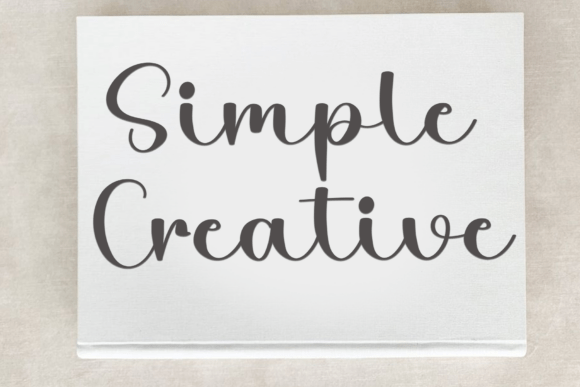
Angelina Whitening Font: Elevate Your Design with a Timeless Handwritten Style
Are you looking for a font that can add a touch of elegance and sophistication to your designs? Look no further than the Angelina Whitening Font. This lovely and timeless handwritten font is perfect for creating eye-catching logos, branding, and quotes that will leave a lasting impression on your audience.
What Makes Angelina Whitening Font Special?
- Unique and Beautiful Touch: Every letter in the Angelina Whitening Font has a unique and beautiful touch that will make your design come alive. The font’s handwritten style gives it a personal and human feel that is hard to replicate with generic fonts.
- Timeless Design: The Angelina Whitening Font has a timeless design that will never go out of style. Its classic look and feel make it perfect for creating designs that are both modern and vintage.
- Elegant and Sophisticated: The font’s elegant and sophisticated style makes it perfect for creating high-end designs that require a touch of luxury.
10 Creative Ways to Use Angelina Whitening Font
- Logo Design: Use the Angelina Whitening Font to create a unique and memorable logo for your brand. The font’s handwritten style will give your logo a personal touch that will help it stand out.
- Branding: Use the font to create a consistent brand identity across all your marketing materials. The font’s elegant and sophisticated style makes it perfect for creating high-end branding.
- Quotes and Posters: Use the font to create eye-catching quotes and posters that will grab the attention of your audience. The font’s unique and beautiful touch will make your quotes and posters stand out.
- Wedding Invitations: Use the font to create beautiful and elegant wedding invitations that will set the tone for the big day.
- Social Media Graphics: Use the font to create engaging social media graphics that will help you connect with your audience.
- Packaging Design: Use the font to create eye-catching packaging designs that will make your products stand out on store shelves.
- Advertising: Use the font to create effective and elegant advertisements that will grab the attention of your target audience.
- Stationery: Use the font to create beautiful and elegant stationery that will make your business stand out.
- Web Design: Use the font to create a unique and memorable website design that will leave a lasting impression on your visitors.
- Infographics: Use the font to create engaging and informative infographics that will help you communicate complex information in a visually appealing way.
Typography Tips for Using Angelina Whitening Font
- Use it Sparingly: Use the Angelina Whitening Font sparingly to create emphasis and add visual interest to your designs.
- Pair it with Other Fonts: Pair the font with other fonts to create a unique and visually appealing typography combination.
- Adjust the Size and Color: Adjust the size and color of the font to create visual hierarchy and add emphasis to your designs.
- Use it for Headings: Use the font for headings and titles to create a clear and visually appealing typography hierarchy.
The Benefits of Using Angelina Whitening Font
- Unique and Memorable: The Angelina Whitening Font will help you create unique and memorable designs that will leave a lasting impression on your audience.
- Elegant and Sophisticated: The font’s elegant and sophisticated style makes it perfect for creating high-end designs that require a touch of luxury.
- Versatile: The font is versatile and can be used for a wide range of design projects, from logos and branding to quotes and posters.
- Easy to Read: The font is easy to read and will help you communicate your message clearly and effectively.
The Angelina Whitening Font is a lovely and timeless handwritten font that is perfect for creating eye-catching logos, branding, and quotes. Its unique and beautiful touch, elegant and sophisticated style, and versatility make it a great choice for designers who want to create high-end designs that will leave a lasting impression on their audience.